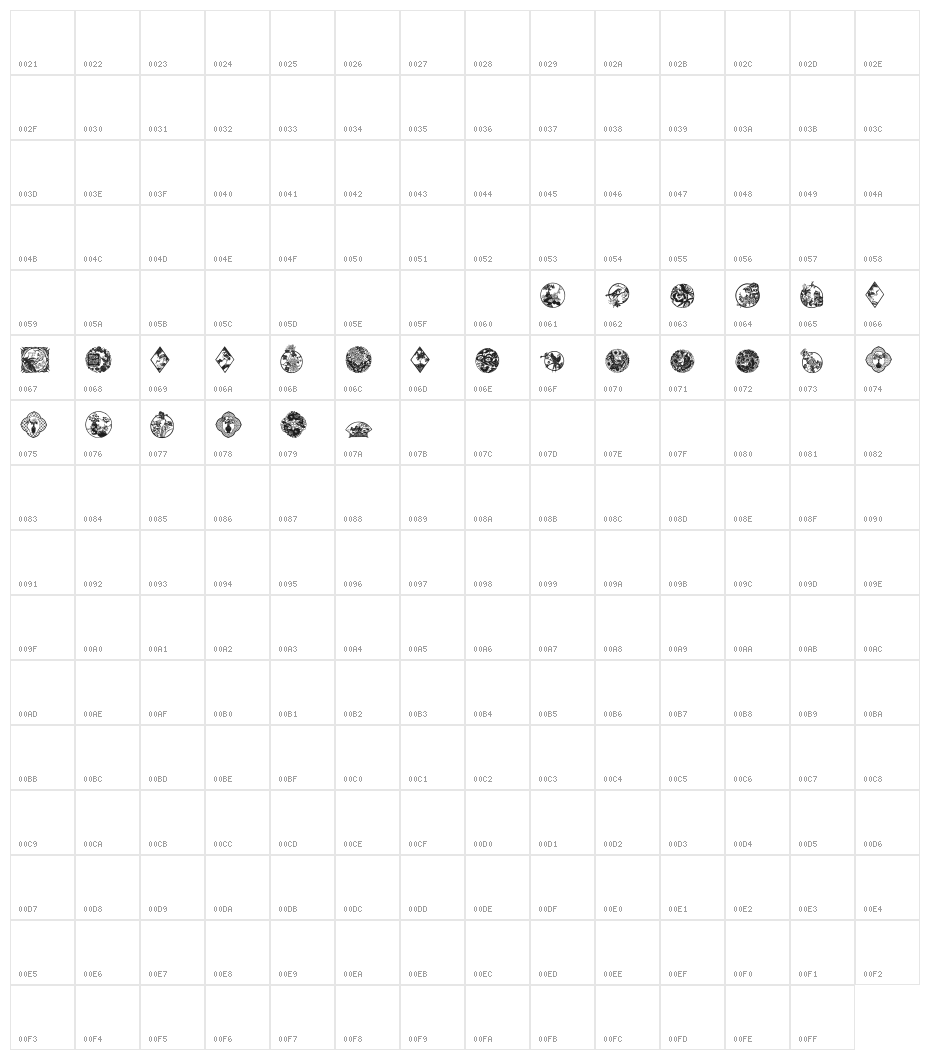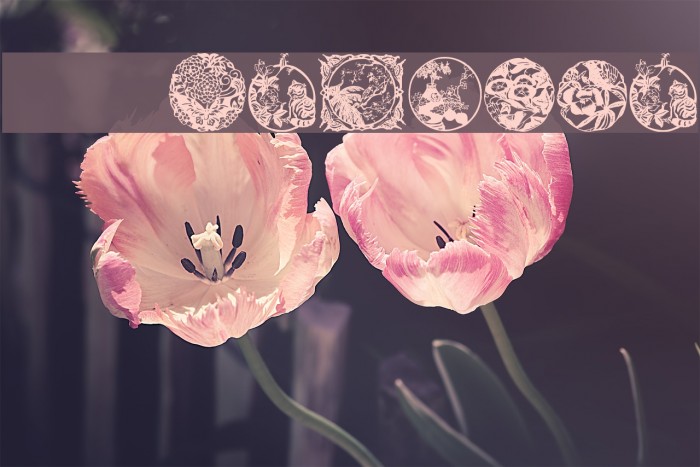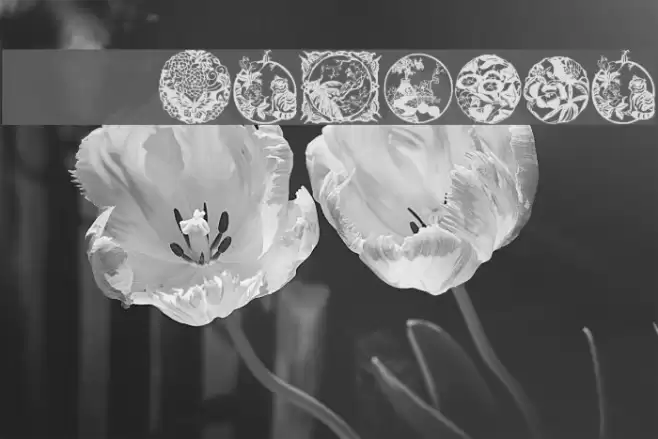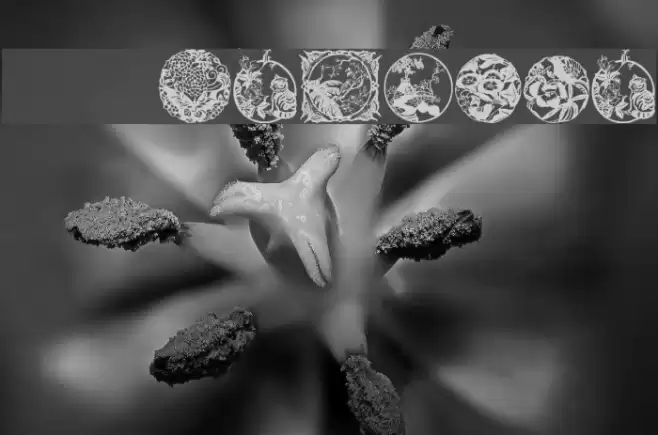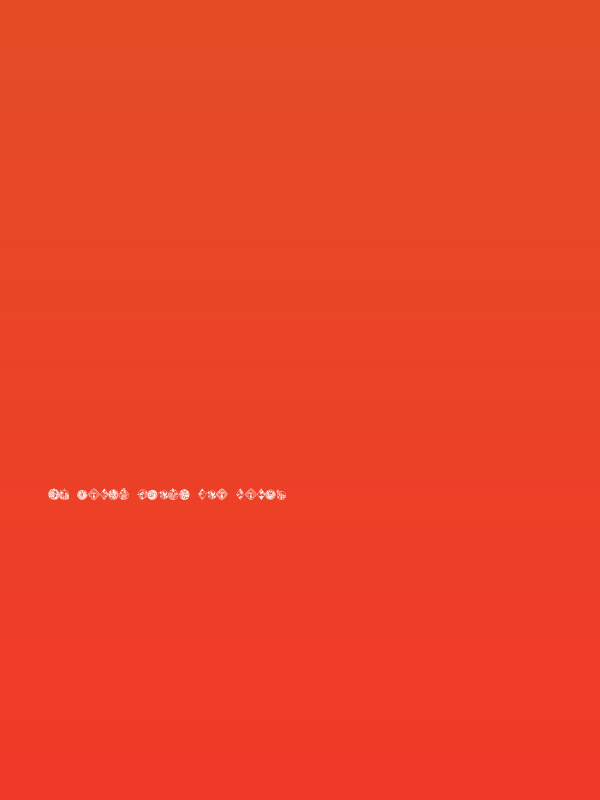
WWElegance Font
WWElegance Description
Highly decorative set of ornate, vintage-style illustrations within various shaped frames, featuring intricate floral, animal, and classical motifs rather than traditional letterforms.
| Overall Style | Vintage, Decorative |
| Use Case | Decorative elements, embellishments, not suitable for body text or headlines. |
| Proposed Projects | Invitations, certificates, decorative borders, vintage-themed designs, scrapbooking. |